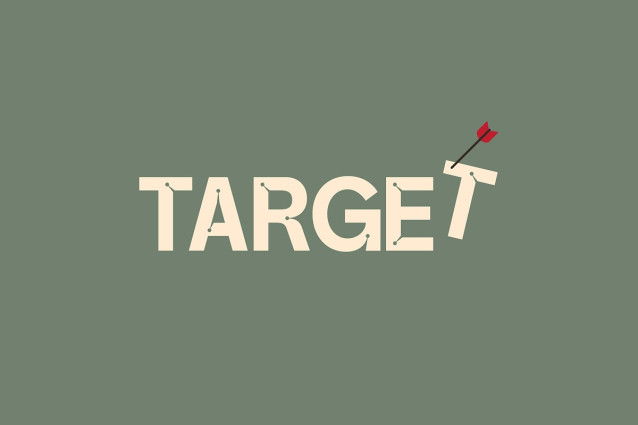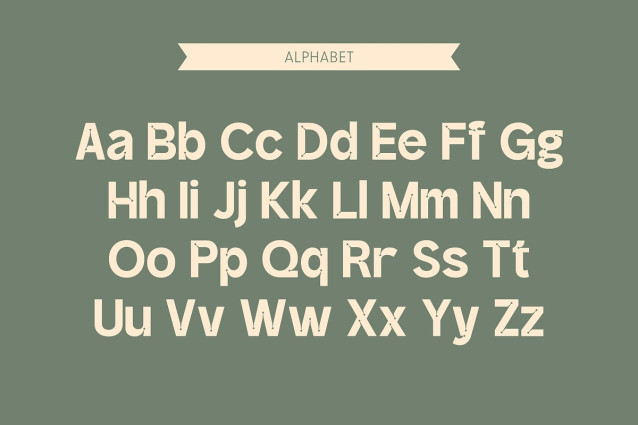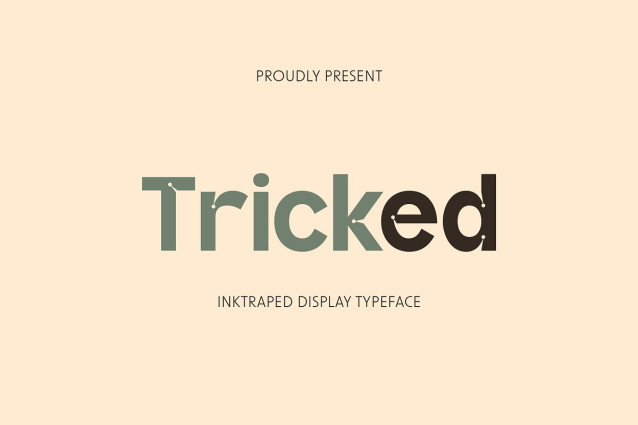
Tricked Font
Tricked Font delivers exactly that. This bold sans serif features rounded, oversized ink traps that create a playful and striking look. As a result, the font feels both modern and full of character.
Not only does Tricked stand out visually, but it also works well across a wide range of design projects. You can use it for posters, logos, packaging, or social media graphics. Wherever you apply it, Tricked brings bold energy and strong personality.
In addition, the font includes uppercase and lowercase letters, numbers, and a set of basic symbols. So, you can easily create consistent and flexible layouts for any purpose.